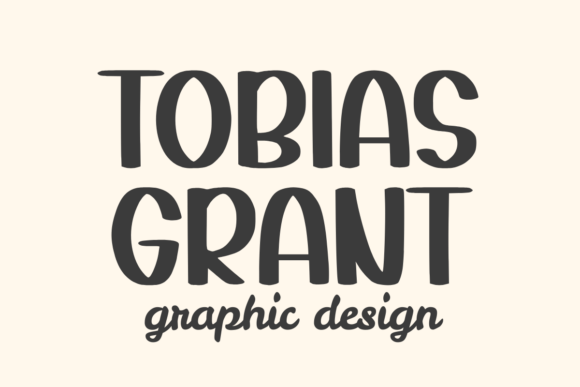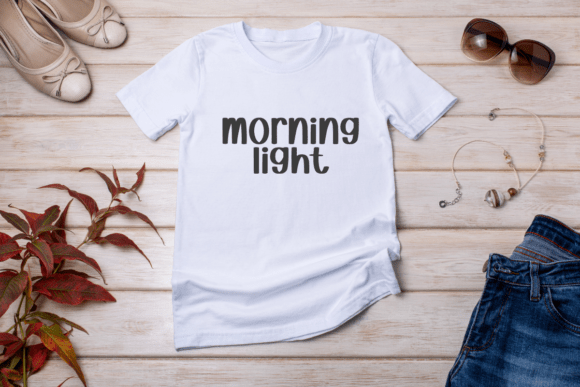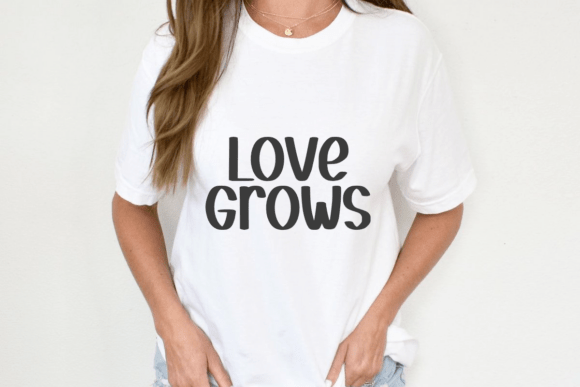
Introduction to Penny Stories Font
Do you ever find yourself rummaging through your craft room, searching for the perfect font to add that special touch to your next creative project? I know I do. And then, like a ray of sunshine, you stumble upon the perfect design resource – Penny Stories Font. This adorable sans serif handwriting font is a game-changer for any crafty enthusiast or designer looking to add a warm, friendly feel to their work.
With its soft, natural look and smooth curves, Penny Stories Font is perfect for crafting moms, DIY enthusiasts, and anyone who loves a good handwritten style. Whether you’re creating stickers, planners, or kids’ worksheets, this font is sure to bring a smile to your face and make your project stand out. And the best part? It’s available for free download, making it an accessible and valuable design resource for anyone looking to elevate their creative project.
In this article, we’ll dive deeper into the world of Penny Stories Font, exploring its features, uses, and benefits. From high-quality designs to transparent backgrounds, we’ll cover everything you need to know to make the most of this incredible font.
Penny Stories Font
- High-quality design resource with a unique, vintage aesthetic, perfect for creative projects.
- Features a transparent background, allowing for easy customization and composition with other design elements.
- Designed with a resolution of 300 DPI, ensuring crisp and clear text at high zoom levels.
- Perfect for use in creative projects, such as book covers, posters, and other print materials, where a unique and eye-catching font is desired.
Honest Review: Penny Stories Font
I recently had the chance to work with the Penny Stories Font, and I’m excited to share my honest review with you.
- ✨ High-quality design: The font is crisp and clear, making it perfect for both digital and print projects.
- ✨ Transparent background: This feature allows for easy customization and flexibility in design projects.
- ⚠️ Limited font weights: The font only comes in a few weights, which might limit its use in certain design projects.
- ⚠️ Not ideal for large text: While the font looks great for small to medium-sized text, it can become blurry when used for large text.
Penny Stories Font
Tips for Getting the Most Out of Penny Stories Font
Use the transparent background option to create a clean and modern design. Experiment with different font sizes and styles to add visual interest to your project. Combine Penny Stories Font with other design elements to create a unique and eye-catching design.
Penny Stories Font is perfect for creative projects such as blog posts, social media graphics, and presentations. You can also use it for personal projects such as invitations, party decorations, and gift tags.
Felipa Font is a free download and a high-quality, elegant script font perfect for design projects that require a touch of sophistication. It features a transparent background, making it ideal for creative projects that involve layering or blending fonts. When to use: wedding invitations, fashion branding, or luxury product packaging. Compared to Penny Stories Font, Felipa Font has a more refined and classic feel, while Penny Stories Font has a more playful and whimsical touch.
Q: Can I use the Penny Stories Font for a transparent background design project?
Yes, the Penny Stories Font features a transparent background, making it ideal for use in creative projects that require a clean and minimalist aesthetic. Simply place the font on top of your design and adjust the opacity to achieve the desired effect.
Q: What is the recommended resolution for using the Penny Stories Font?
For optimal results, we recommend using the Penny Stories Font at a resolution of 300 DPI or higher. This ensures that the font appears crisp and clear, even at larger sizes.